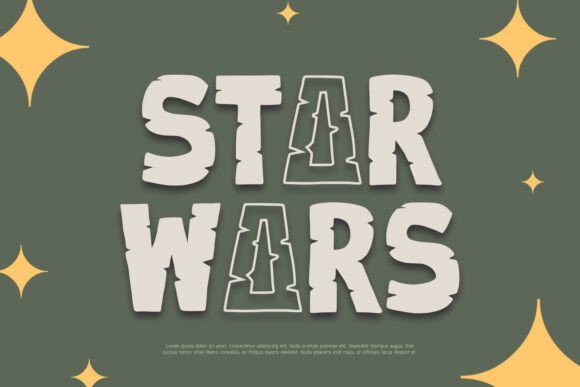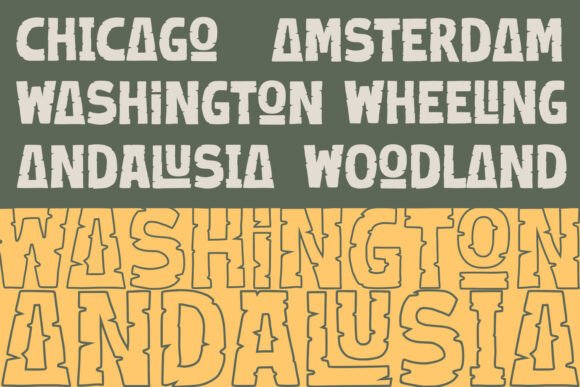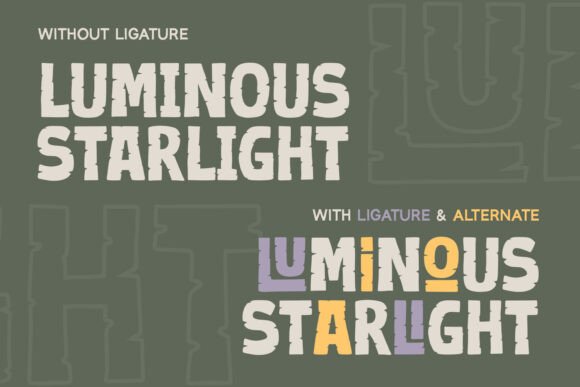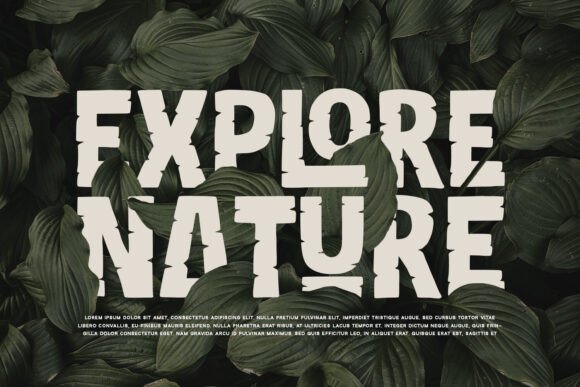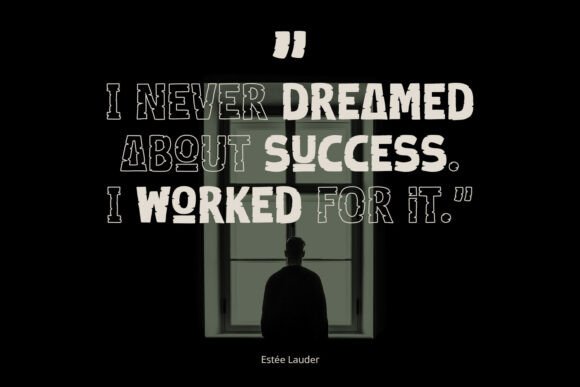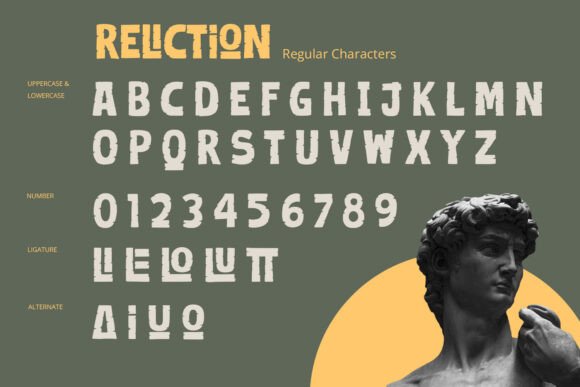
Introduction to Reliction Font
Imagine you’re flipping through a glossy magazine, and the words leap off the page in a stunning display of elegance and modernity. That’s the kind of impact that the Reliction Font can have on your design projects. This versatile display font is designed to make a statement, whether you’re working on a magazine, packaging, poster, or even a special event.
Key Features of Reliction Font
- High-quality design with a transparent background, making it ideal for creative projects.
- Features a unique and stylish design, perfect for adding a touch of elegance to any project.
- Designed to be highly legible, with clear and crisp lettering that’s easy to read at various resolutions.
- Size: The font family includes a range of weights and styles, from light to bold, allowing for maximum flexibility in design.
Honest Review: Reliction Font
I recently had the chance to work with the Reliction Font, and I’m excited to share my thoughts with fellow designers. As a design resource, it’s essential to have high-quality fonts that elevate our creative projects.
The Reliction Font truly shines with its sleek, modern design that works perfectly for a wide range of applications, from digital products to print materials. The transparent background is a nice touch, allowing for seamless integration into any design.
Here are some key points that stood out to me:
- ✨ Highly customizable, with a range of font sizes and styles to suit any design need.
While the Reliction Font is an excellent addition to any design toolkit, there are a few limitations to consider:
- ⚠️ Limited character set, which may not be suitable for projects requiring extensive text.
- ⚠️ Not suitable for use as a display font, as it can be difficult to read at larger sizes.
Overall, I’m impressed with the Reliction Font and would recommend it for designers looking for a high-quality, modern font for their creative projects. While it may have some limitations, it’s a solid choice for a wide range of design applications.
Reliction Font is a versatile design resource that can be used for a variety of creative projects, including:
- Logos and branding
- Infographics and posters